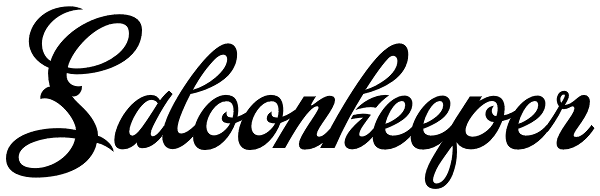
Saloonkeeper
Saloonkeeper, with its western looking spurs, was inspired by the Leinenkugel's brewing label. The Saloonkeeper Pro font family introduces something new for script fonts, it’s called the Shadow Layer font, script fonts have connecting letters and...